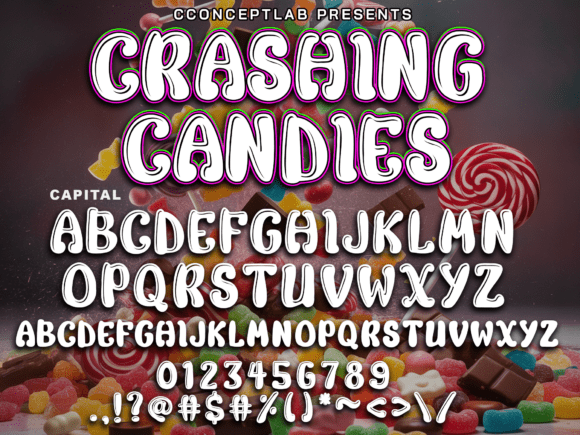
Introduction to Crashing Candies Font Font
Fonts play a crucial role in design, and the Crashing Candies Font font is a typeface that brings both character and versatility to any project. Whether you’re working on a branding project, a website, or a print design, the Crashing Candies Font font offers a unique style that can elevate your work.
Crashing Candies is an incredibly unique children font.
Masterfully designed to become a true favorite, this font has the potential to bring each of your creative ideas to the highest level With its groovy, cartoon and aesthetic bold look, this font is ideal for branding, theme posters, invitations, posters, inspirational quotes, or merchandise with handwritten stroke vibe.
Key Features of Crashing Candies Font Font
Why Choose Crashing Candies Font Font?
The Crashing Candies Font font is more than just a typeface – it’s a design tool that helps you communicate your message with style and clarity. Its unique character set and versatile design make it suitable for a wide range of applications, from elegant invitations to bold headlines.
With its carefully crafted letterforms and balanced proportions, the Crashing Candies Font font ensures readability and visual appeal across all mediums.
What makes Crashing Candies Font font special?
The Crashing Candies Font font stands out with its unique design, exceptional readability, and versatility across various design applications.